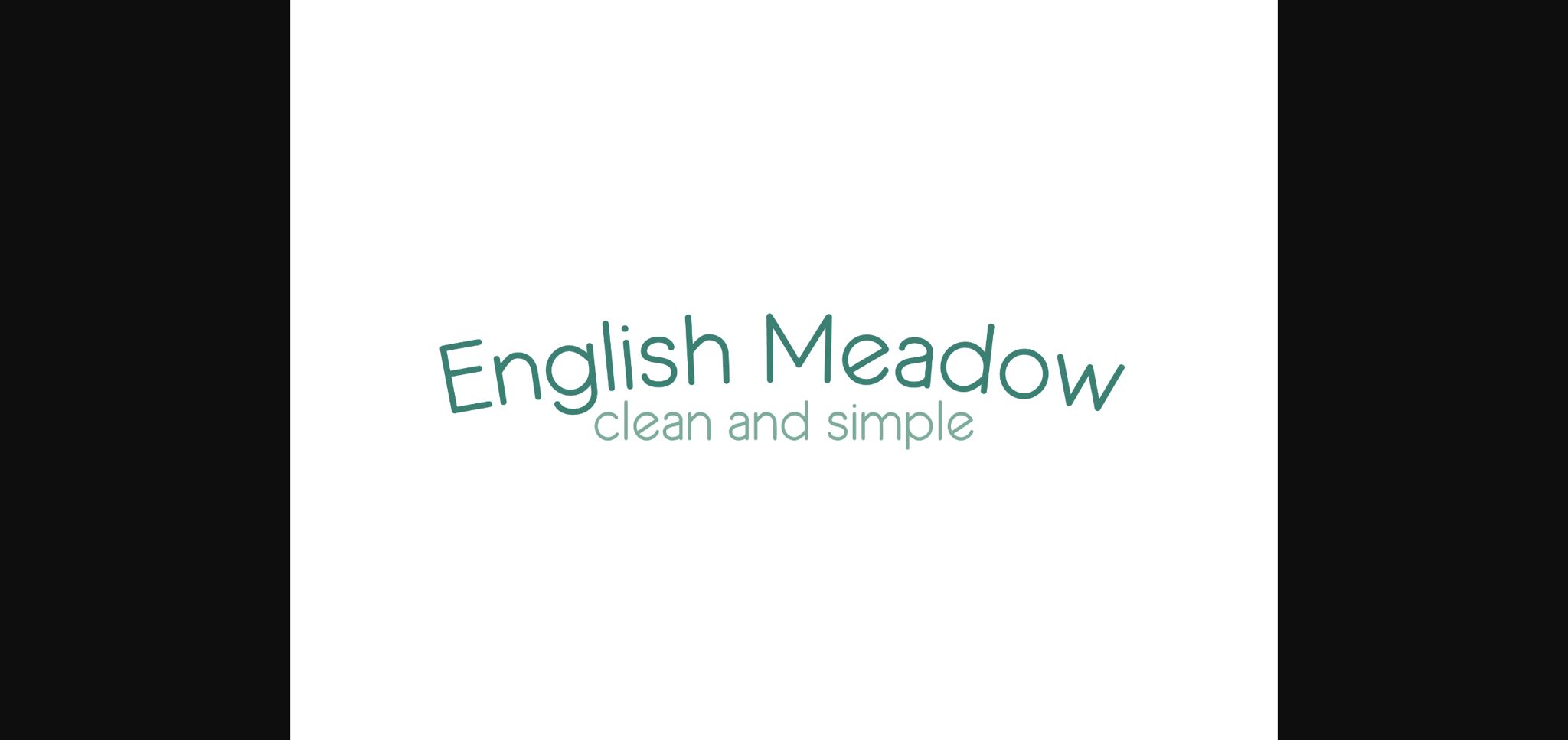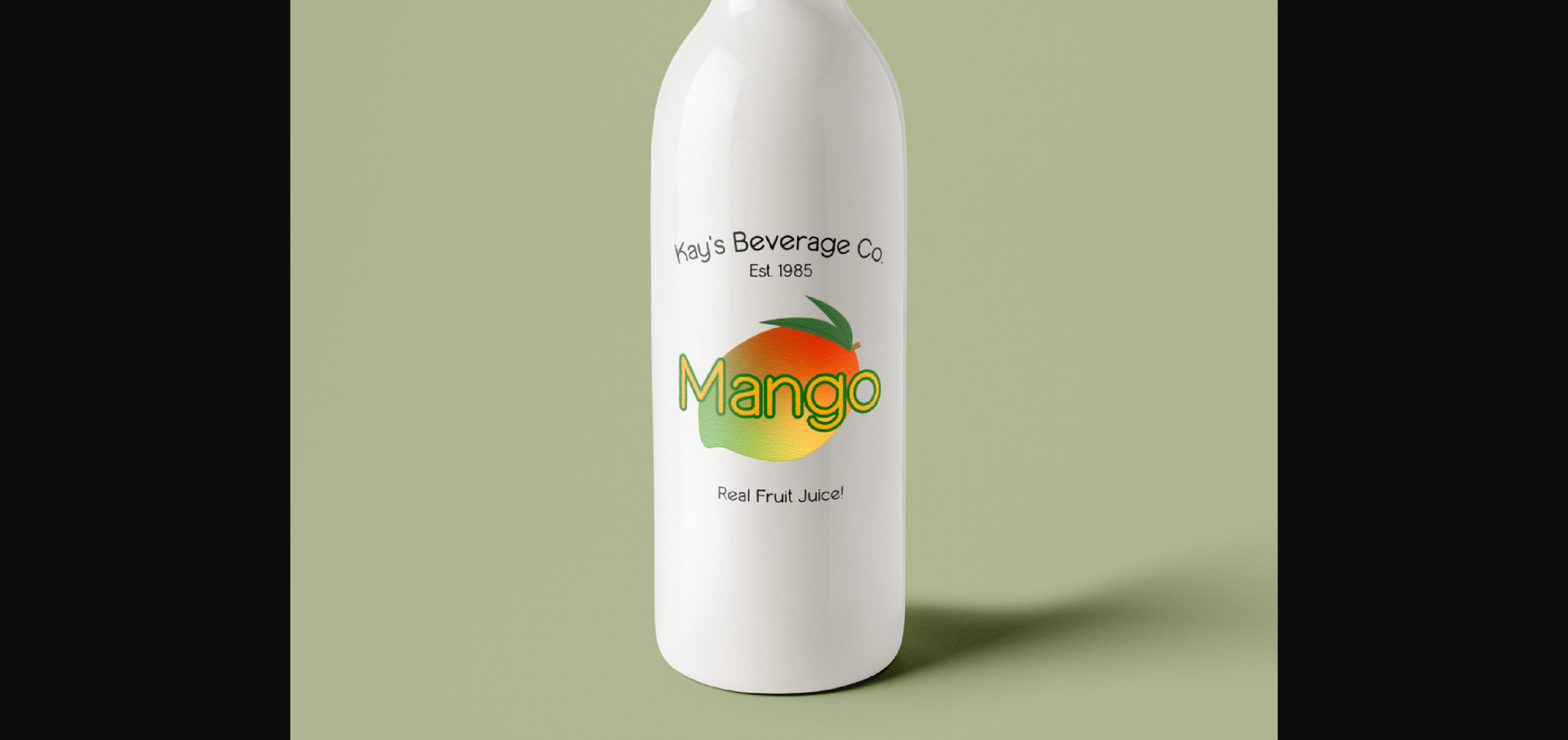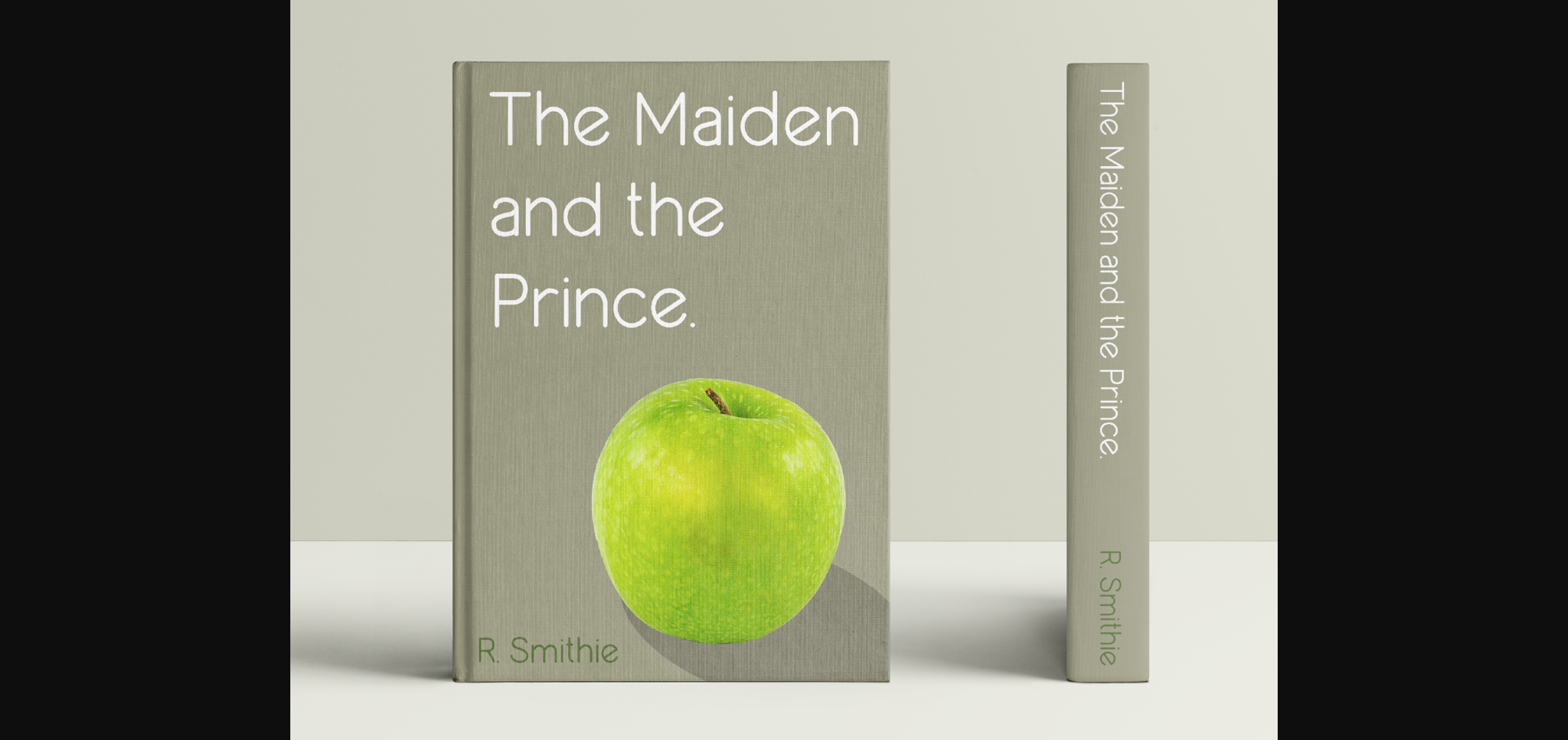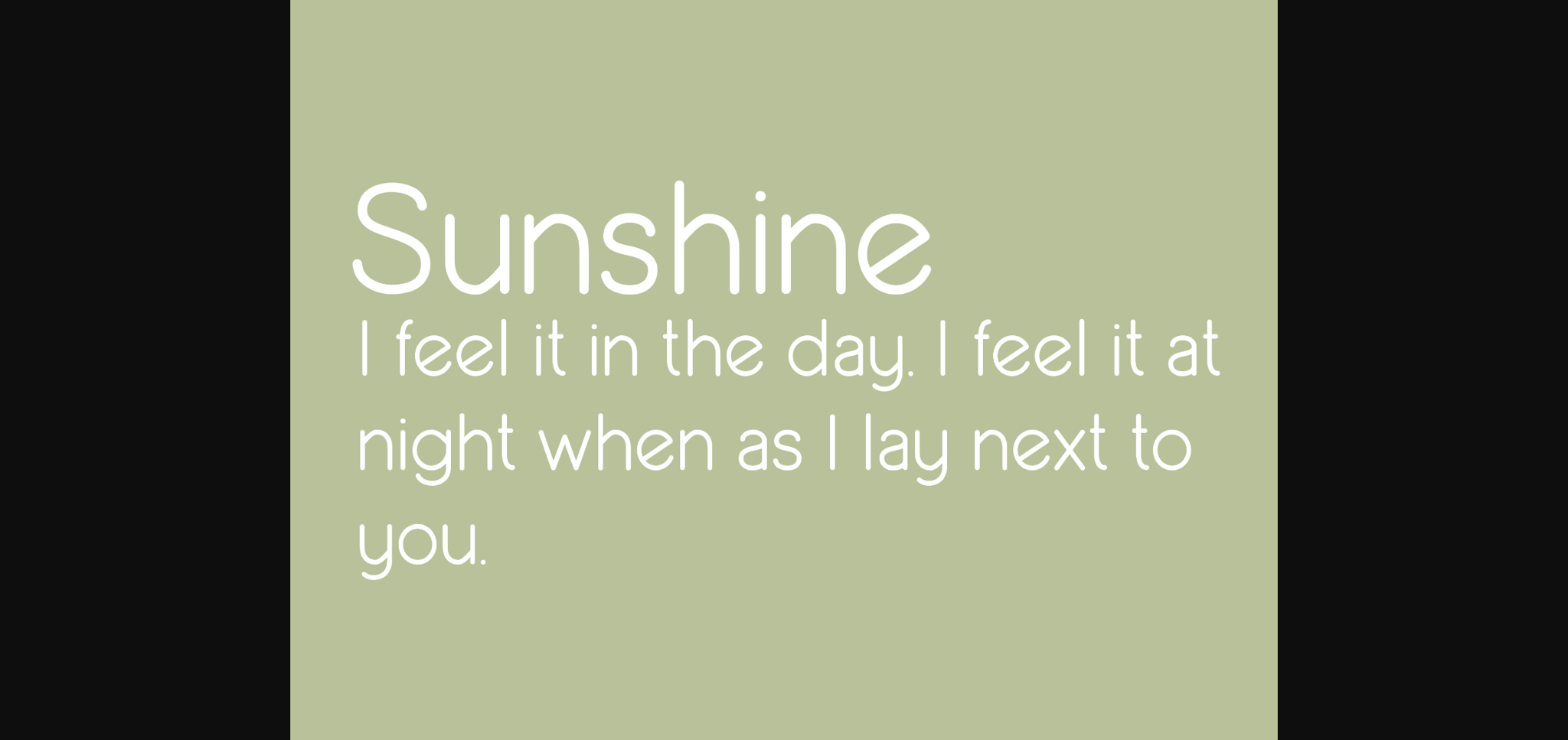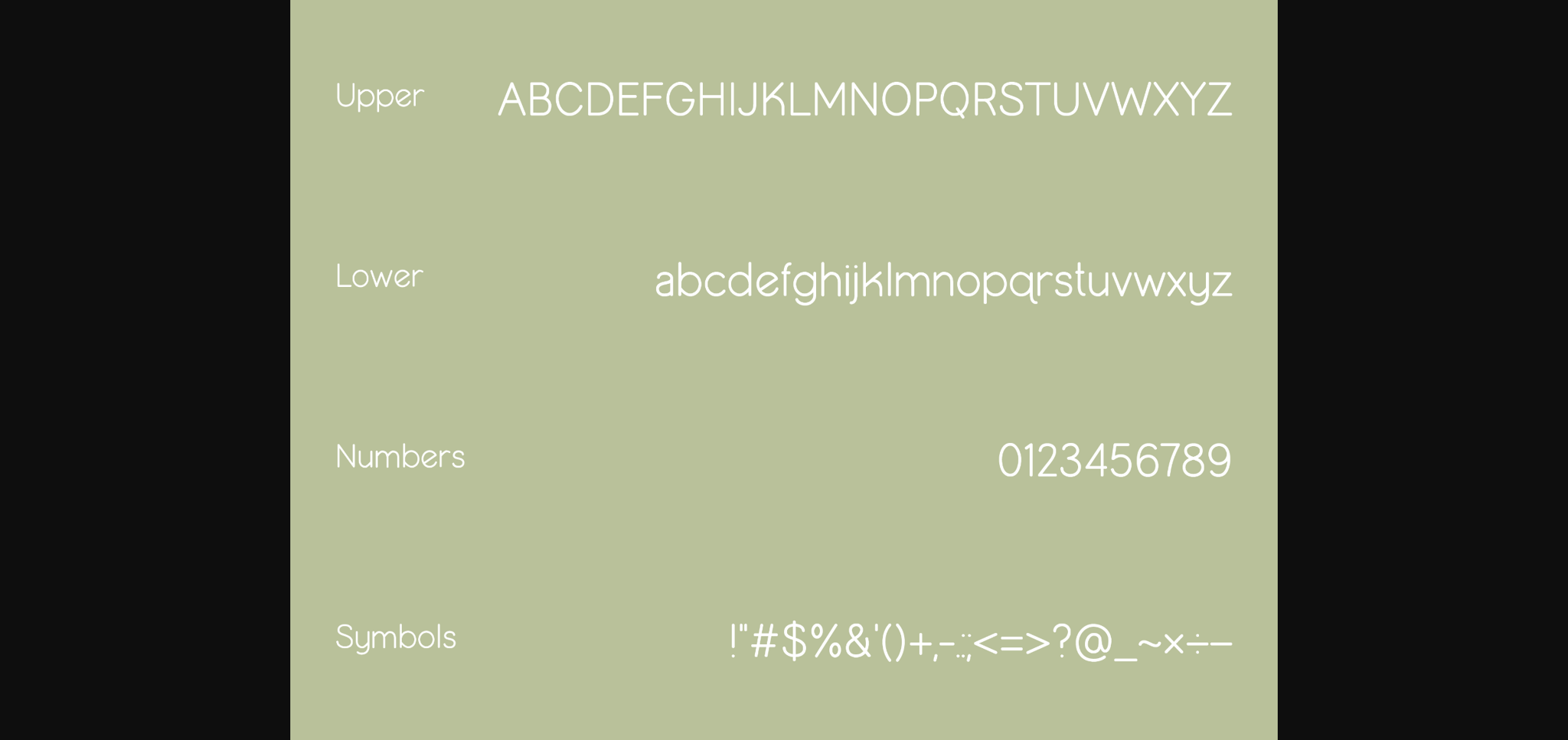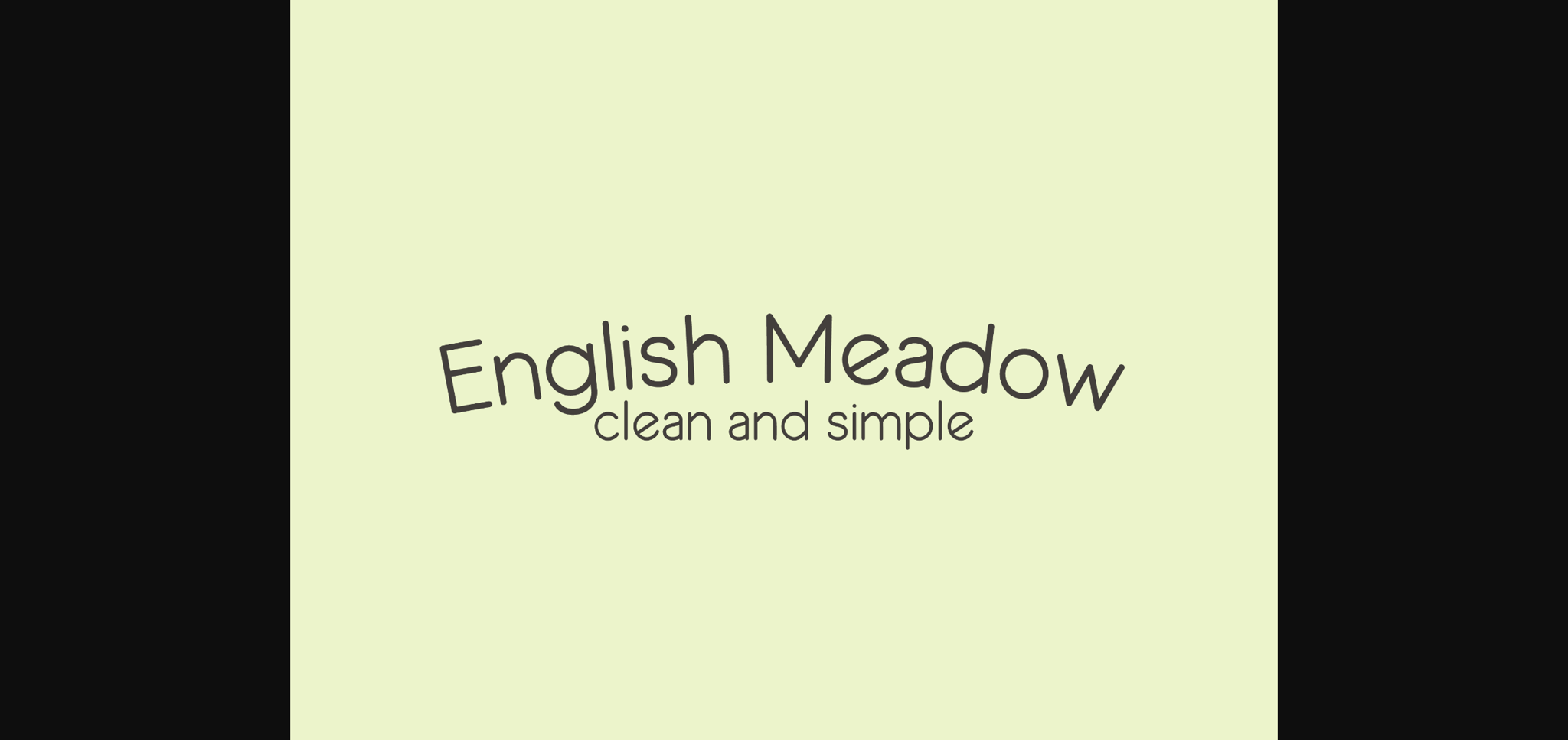
English Meadow Font
About English Meadow Font
English Meadow is a clean typeface with subtle details that helps set it apart. It’s easily legible, fun and perfect for labeling and making personalized cups, shirts, and more! Use this beautiful handmade, san-serif font to decorate any home.